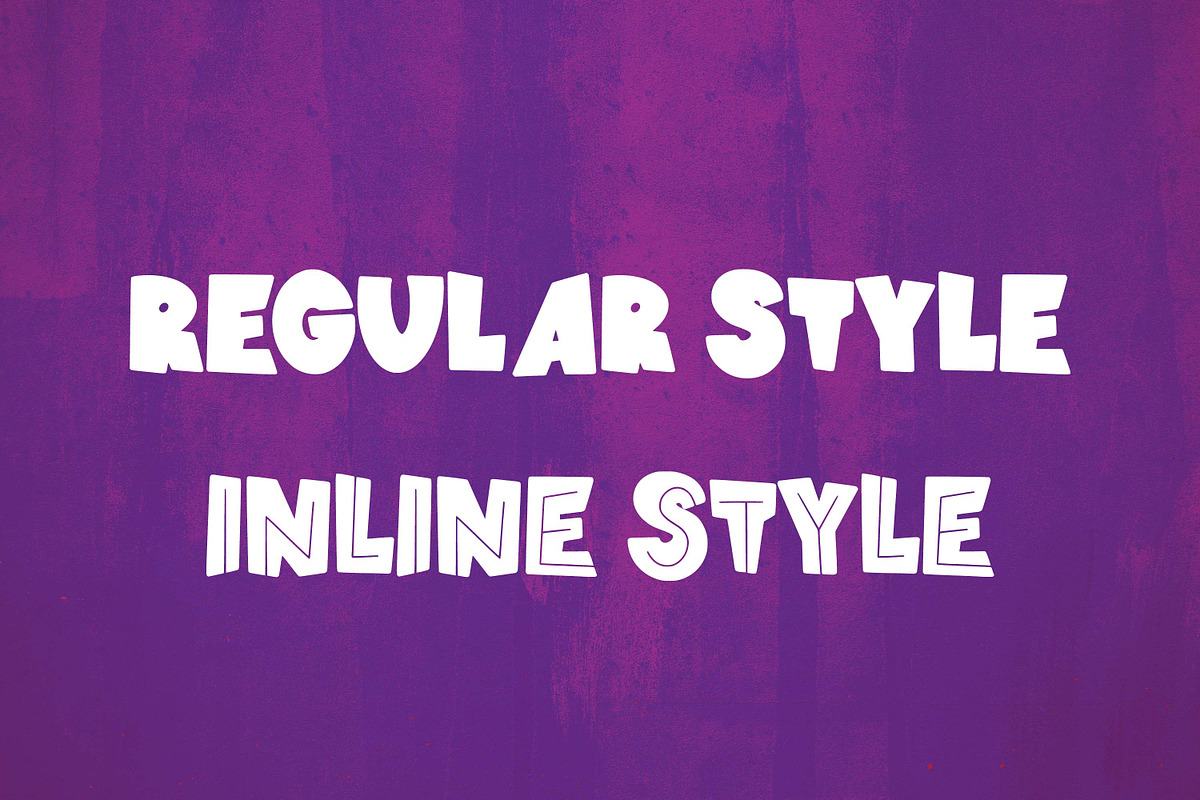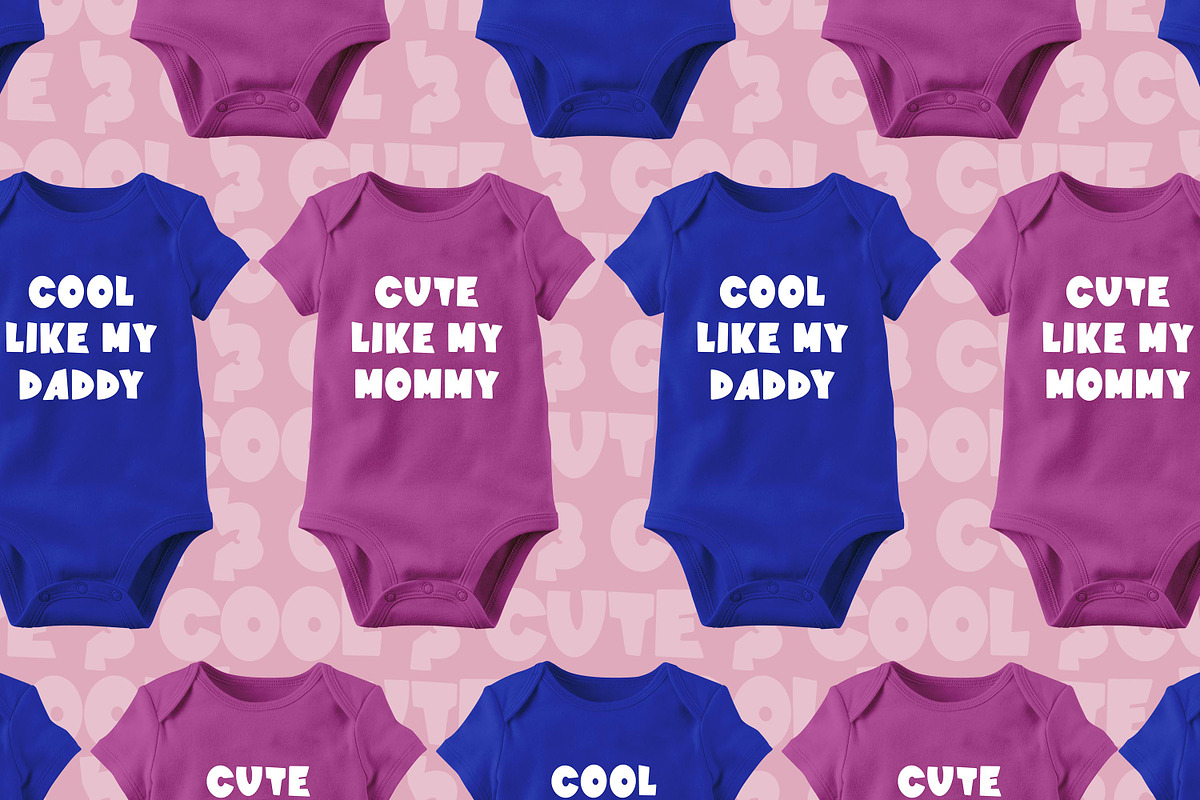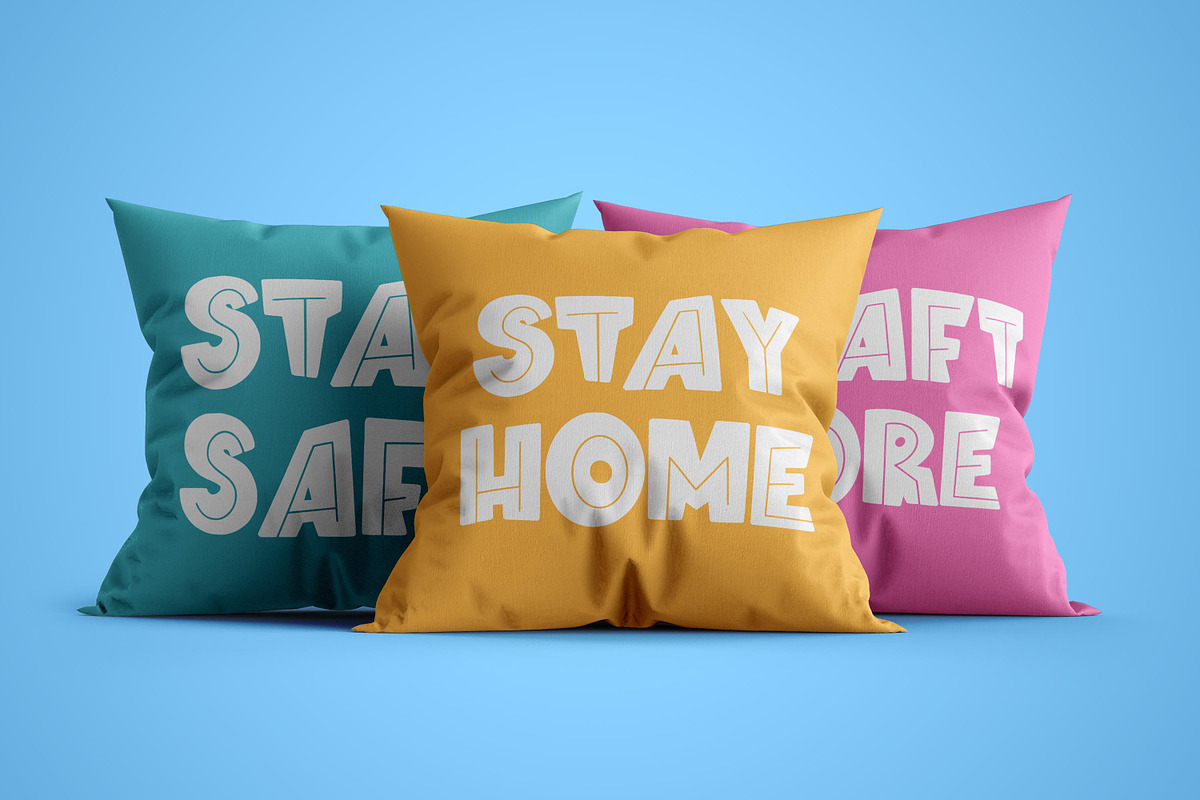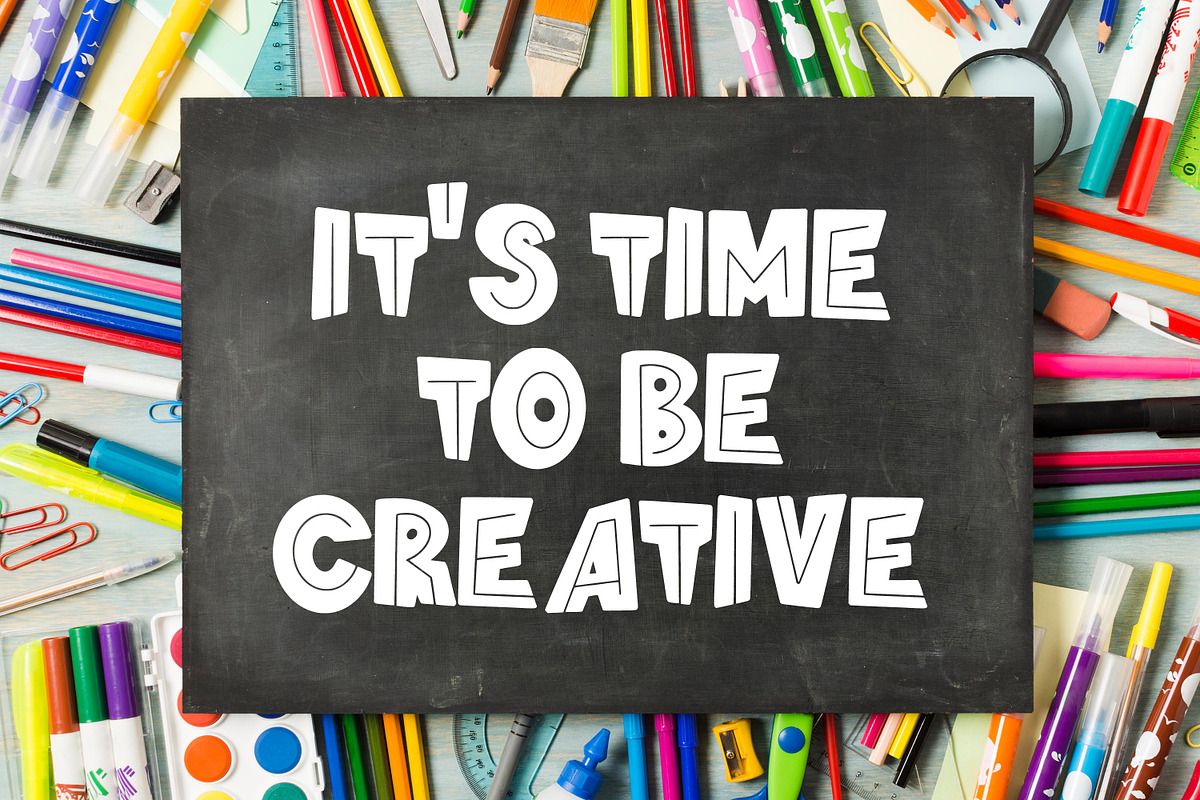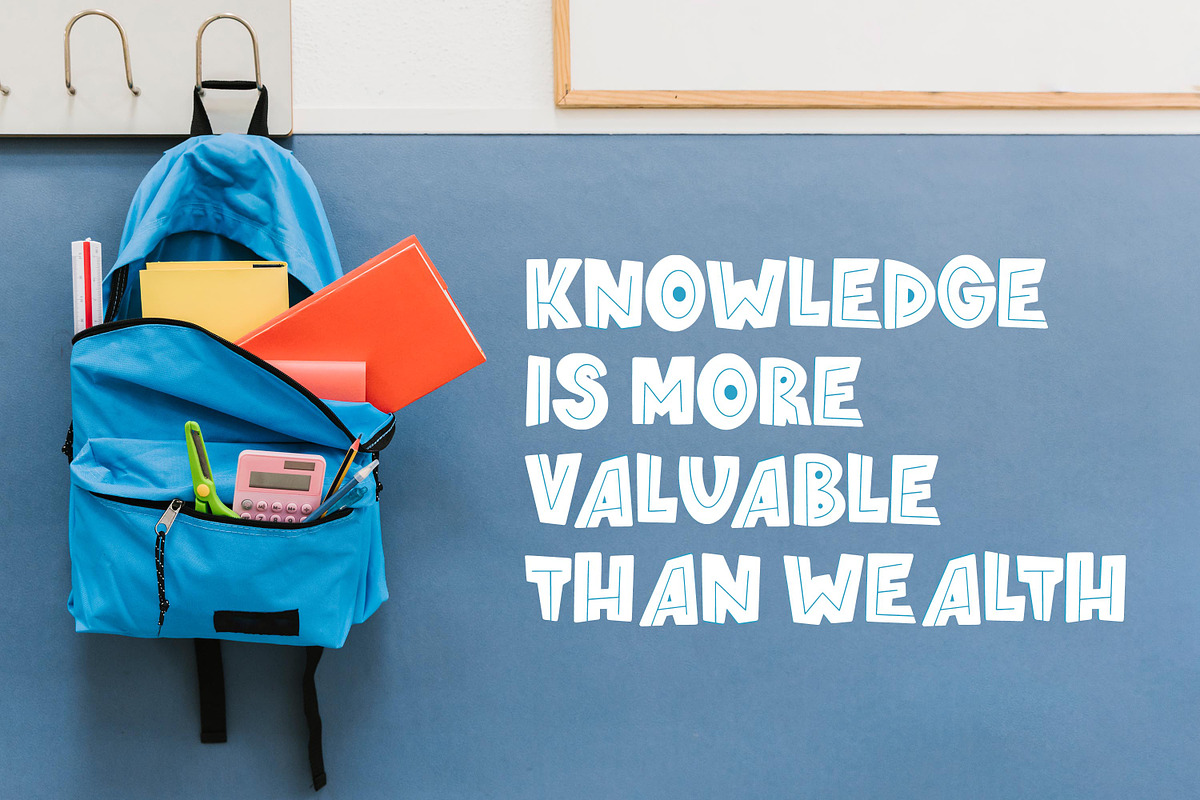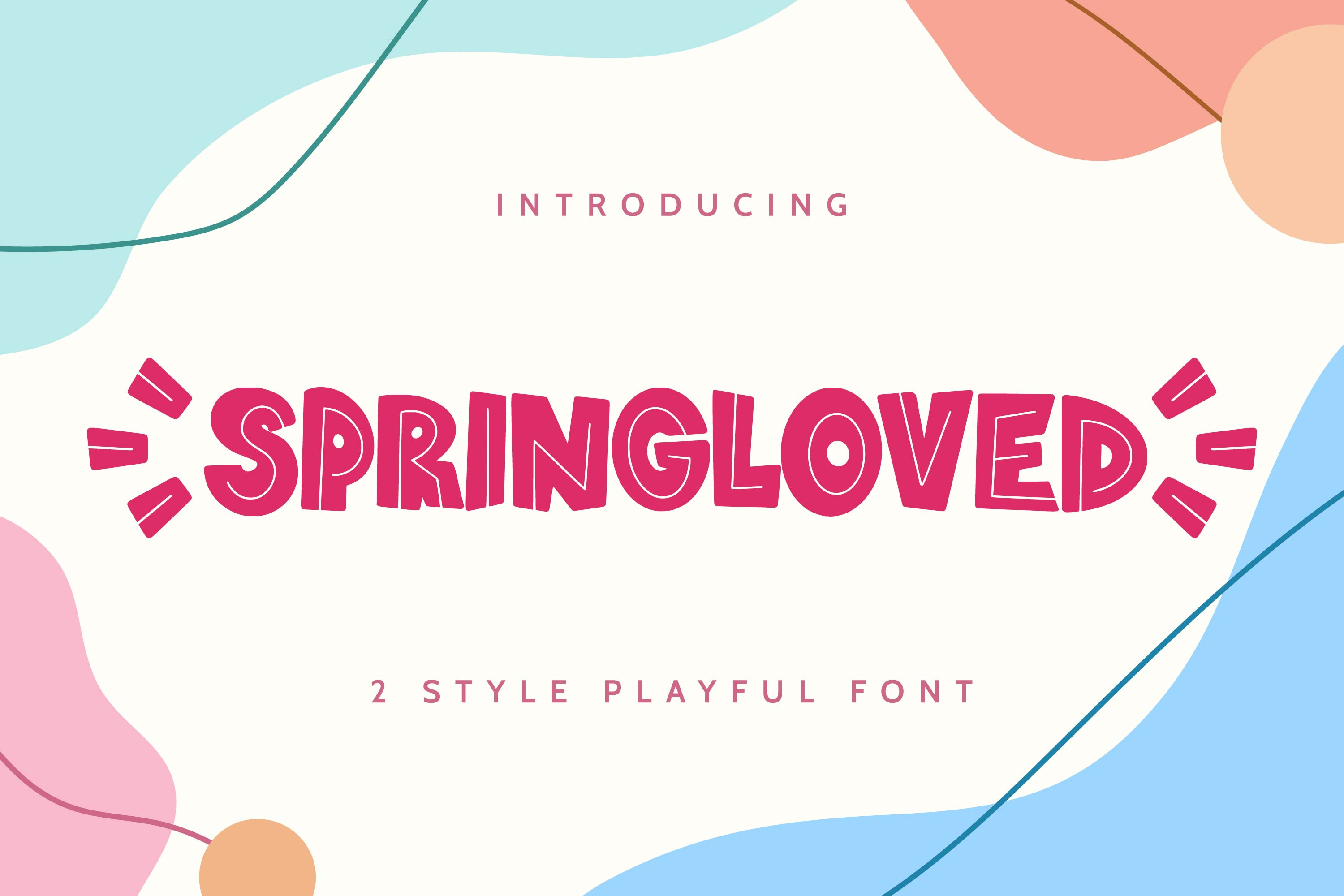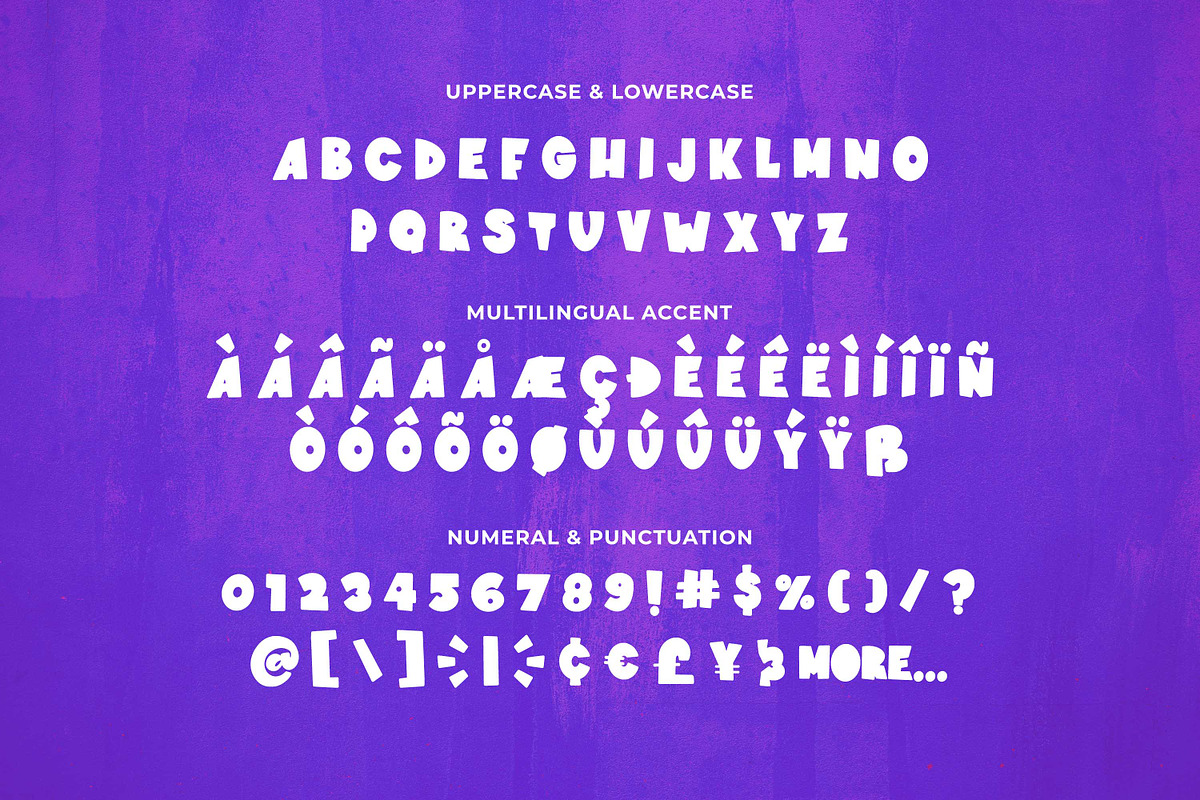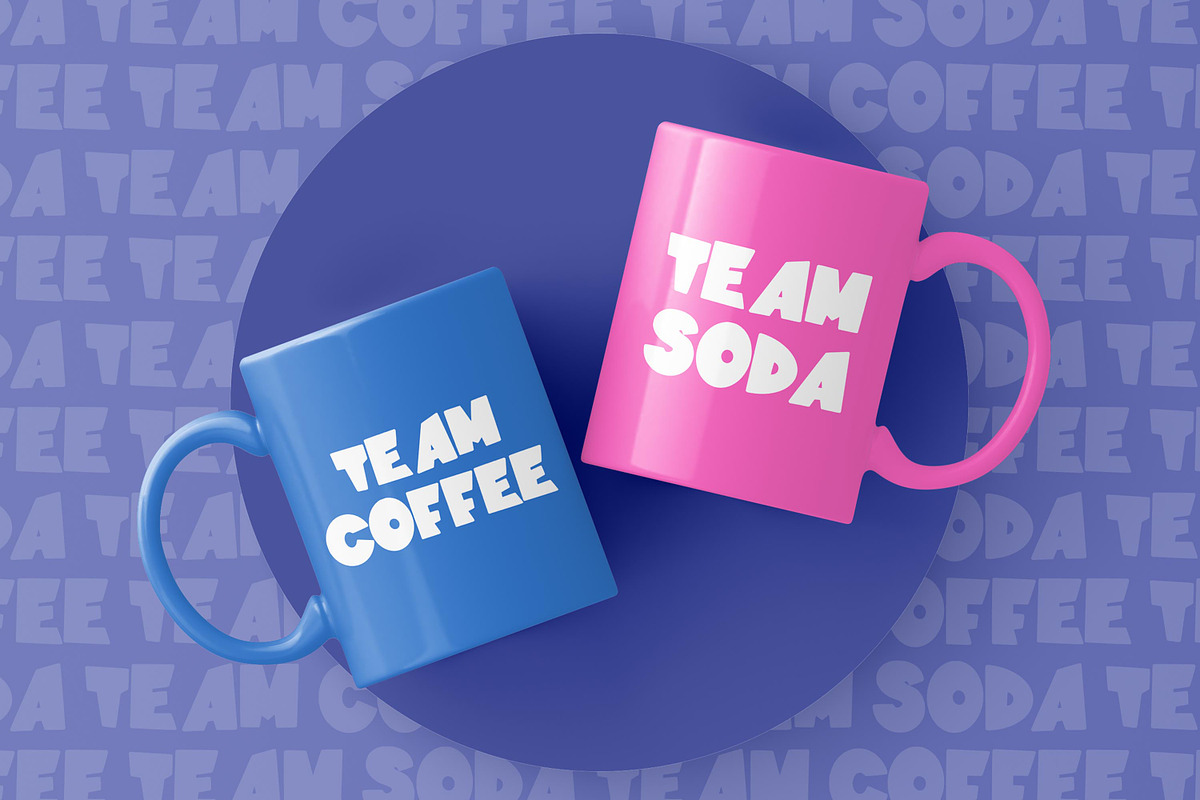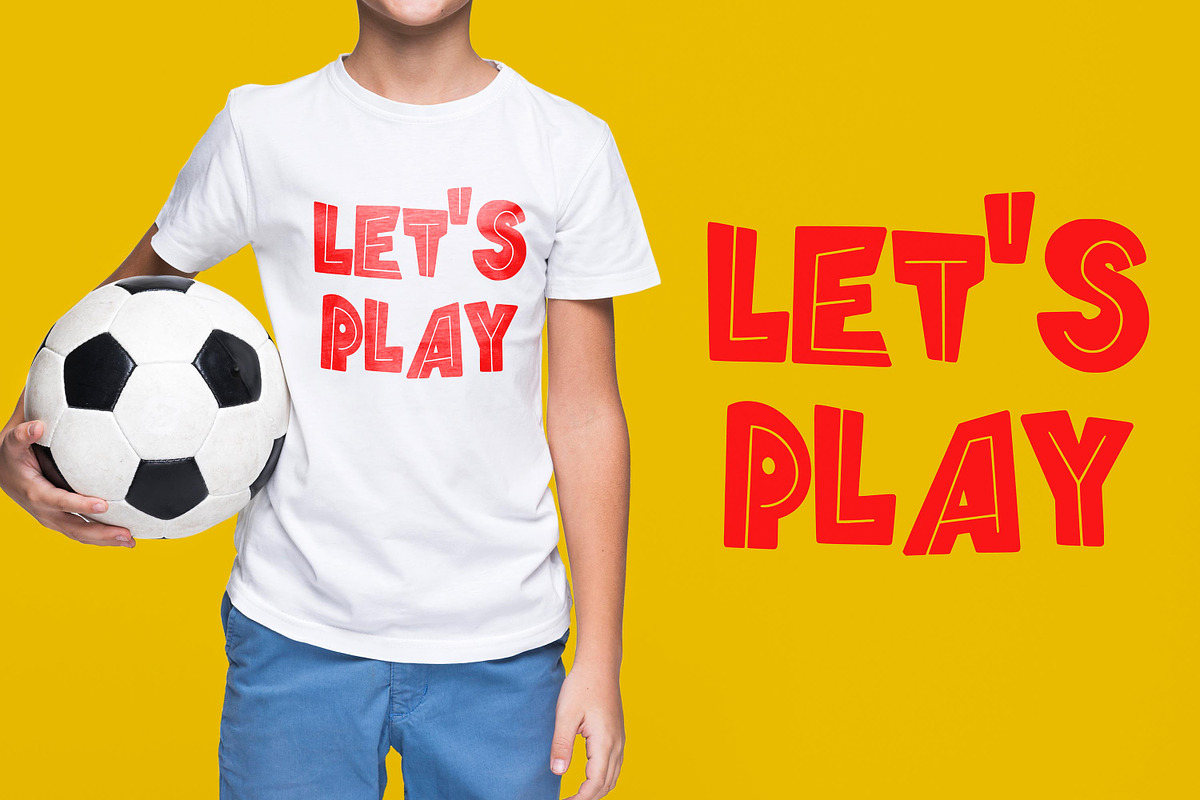
Springloved - 2 Style Playful Font
Springloved is a cute display font, carefully created to become a true favorite. Its casual charm makes it appear wonderfully down-to-earth, readable and, ultimately, incredibly versatile. Springloved will look outstanding in any context, whether it’s being used on busy backgrounds or as a standalone headline!